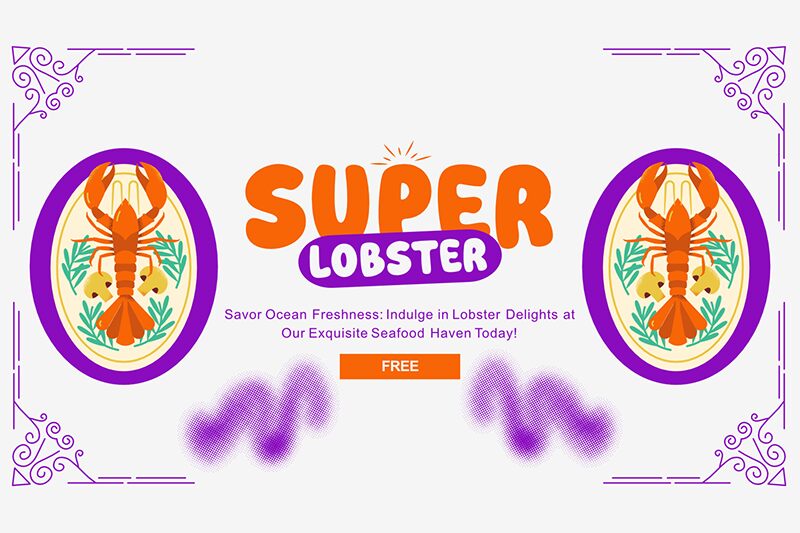
Super Lobster
Super Lobster font by fsuarez913 is a bold display font that combines cartoonish elements with a friendly appearance. Its rounded forms and thick character widths contribute to a smooth, casual aesthetic and effortless readability. With visibly smooth edges and a harmonious design, this free font suits designs where warmth, approachability, and friendliness are core requirements.
Use Super Lobster in children’s books, branding for family-oriented products or sectors related to parents. Further use extends to packaging designs for daily goods (cooking ware), personal blogs, websites showcasing summer camps or retreats, menu signage at cafes/restaurants serving comfort food dishes; just about anything needs an approachable feel!